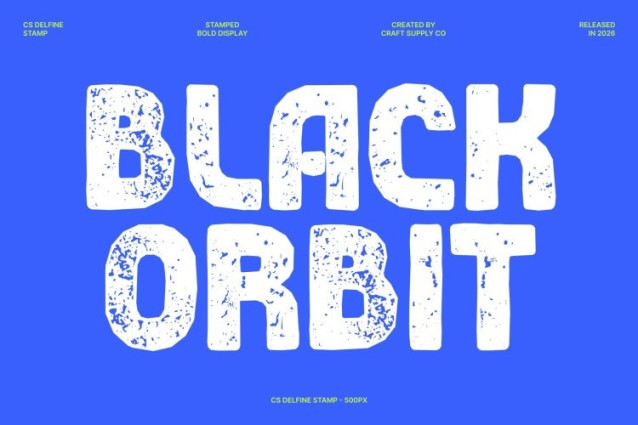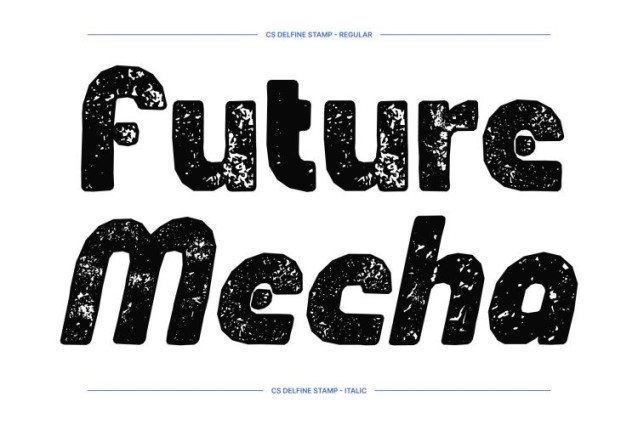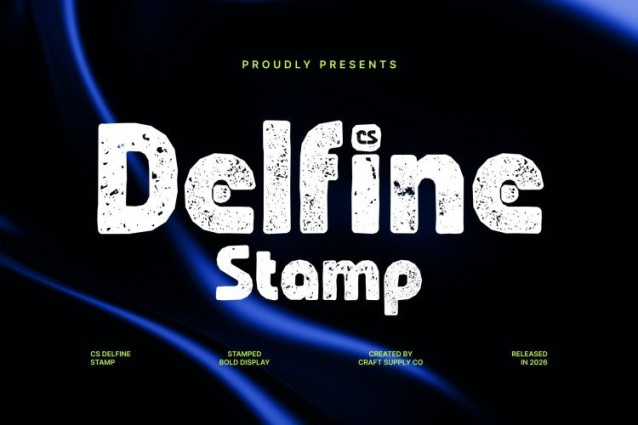
CS Delfine Stamp Font
CS Delfine Stamp Font – This is a bold modern sans-serif display font designed to command attention. Its strong letterforms and confident structure create an unmistakable presence, making it perfect for headlines, posters, and standout branding. The stamped texture adds a tactile layer that enhances its visual power and gives the font a distinctive, handcrafted feel.
Funky and Lively Character
This typeface radiates energy and playfulness through its expressive shapes and dynamic rhythm. Each letter feels full of movement, creating a vibrant tone that instantly brings excitement to any design. The combination of bold geometry and stamped texture results in a lively, modern personality that feels fresh and engaging.
Designed for High-Impact Creativity
This font thrives in projects that require bold expression and visual excitement. From music and event posters to social media campaigns and youthful branding, the font helps create eye-catching compositions that stand out in busy visual spaces.
Confident, Playful, and Memorable
Perfect for creatives who want to communicate energy and personality, this font transforms simple text into a powerful visual statement. Its bold style ensures your message feels dynamic, expressive, and impossible to overlook.